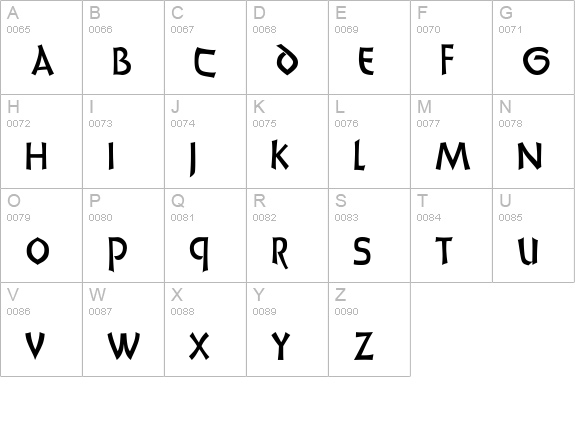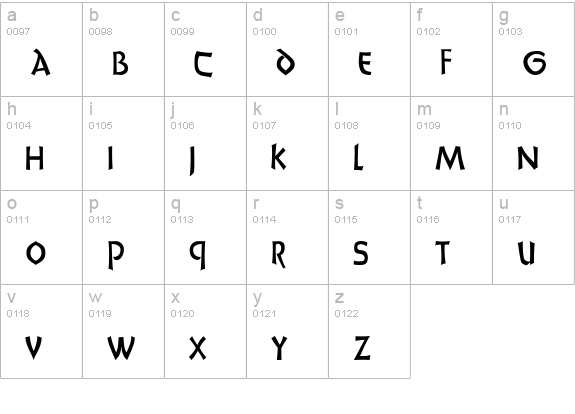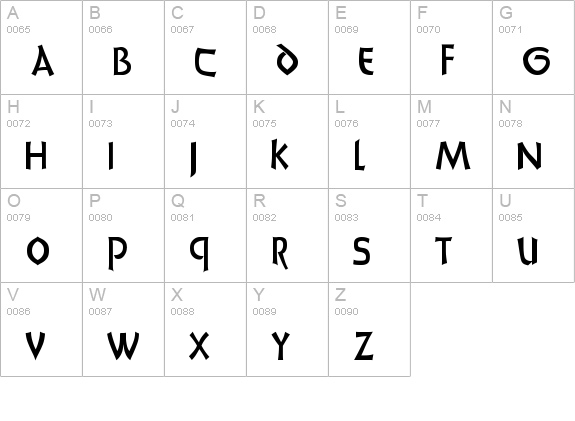
Uncials Font Details
Uncials font is a timeless and elegant typeface that exudes a sense of history and tradition. Its distinctive and ornate letterforms are reminiscent of ancient manuscripts and calligraphy, making it the perfect choice for projects that require a touch of old-world charm. The Uncials font is meticulously crafted with attention to detail, ensuring that each letter is beautifully rendered and perfectly balanced. Its rounded shapes and flowing lines create a harmonious and visually pleasing appearance, while its generous spacing allows for easy readability. This versatile font is suitable for a wide range of applications, including invitations, wedding stationery, logo designs, book covers, and more. Its classic yet contemporary style adds a touch of sophistication and refinement to any project, making it a favorite among designers and typographers alike. One of the best things about Uncials font is that it is available for free download at FontsMarket.com. This means that you can easily access and use this stunning typeface without any cost. Whether you are a professional designer or a casual enthusiast, having access to a high-quality font like Uncials can greatly enhance your creative endeavors. So why wait? Discover the beauty and elegance of Uncials font today! Download it for free at FontsMarket.com and elevate your designs to a whole new level of sophistication.